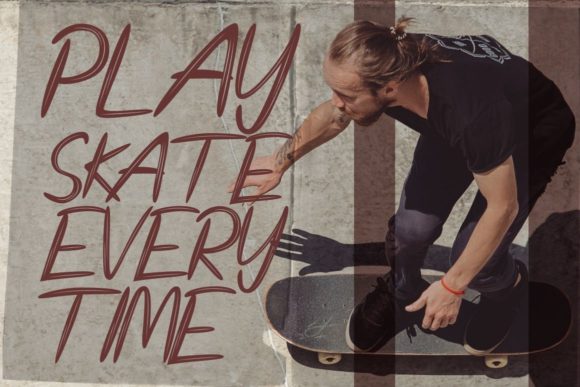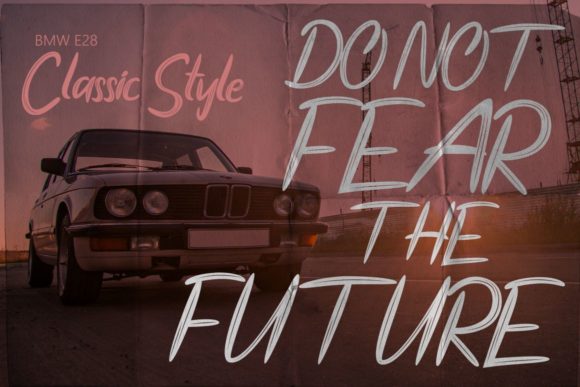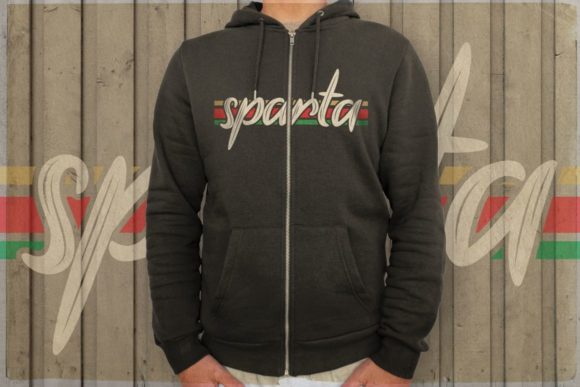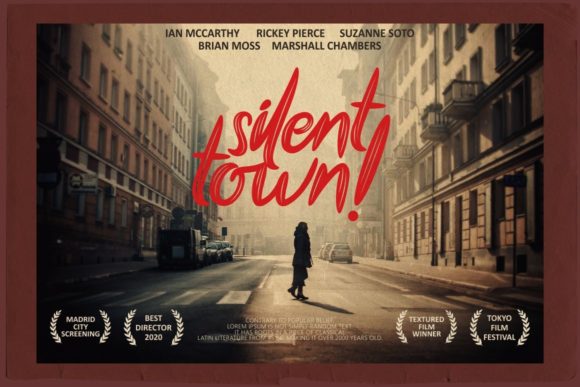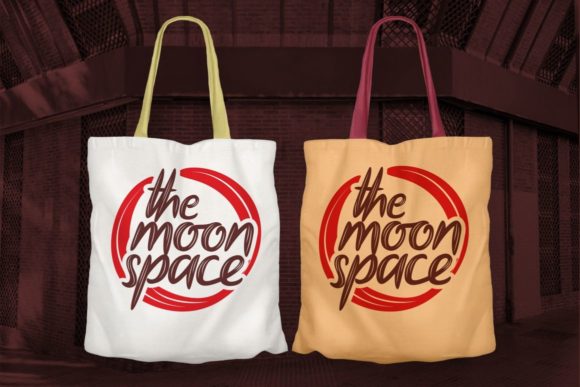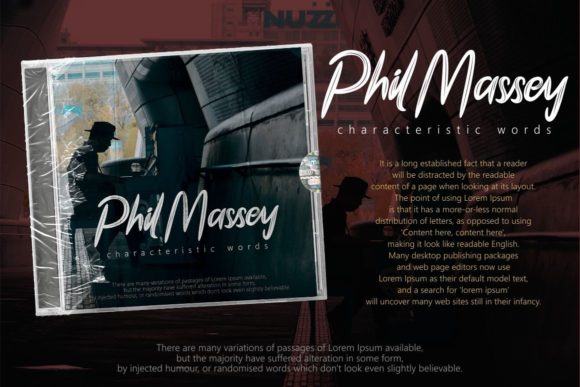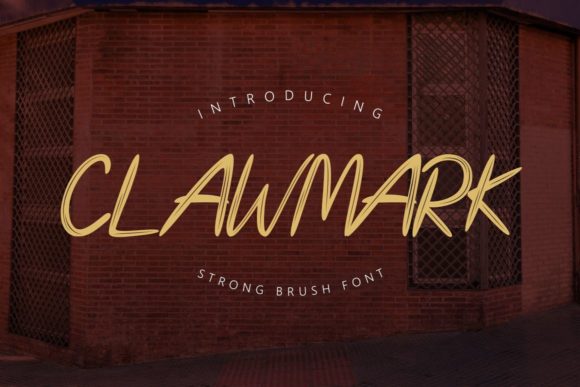
Unleash Your Creativity with Clawmark Font: A Cool Brushed Display Font
Are you a designer or crafter looking for a unique and creative way to bring your ideas to life? Look no further than the Clawmark Font, a cool, brushed display font that’s sure to add a touch of personality to any project. In this article, we’ll take a closer look at the features and benefits of Clawmark Font, and explore how it can help you take your designs to the next level.
What is Clawmark Font?
Clawmark Font is a brushed display font that’s perfect for adding a touch of edginess and creativity to your designs. With its unique, hand-brushed texture, this font is sure to stand out from the crowd and grab attention. Whether you’re working on a logo, poster, or social media graphic, Clawmark Font is a versatile and stylish choice that’s sure to impress.
One of the standout features of Clawmark Font is its PUA (Private Use Area) encoding. This means that you can access all of the glyphs and swashes with ease, giving you maximum flexibility and creative control. With PUA encoding, you can easily insert special characters, ligatures, and other unique elements into your designs, taking them to the next level.
Features and Benefits of Clawmark Font
So what makes Clawmark Font so special? Here are just a few of its key features and benefits:
• Unique, hand-brushed texture: Add a touch of personality and edge to your designs with Clawmark Font’s distinctive, hand-brushed texture.
• PUA encoded: Easily access all glyphs and swashes, giving you maximum creative control.
• Versatile and stylish: Perfect for a wide range of design projects, from logos and posters to social media graphics and more.
How to Use Clawmark Font in Your Designs
So how can you start using Clawmark Font in your designs? Here are a few ideas to get you started:
• Logos and branding: Use Clawmark Font to create a unique and memorable logo that stands out from the crowd.
• Posters and flyers: Add a touch of personality and style to your posters and flyers with Clawmark Font’s bold, brushed texture.
• Social media graphics: Use Clawmark Font to create eye-catching social media graphics that grab attention and drive engagement.
• Crafting and DIY projects: Add a personal touch to your crafting and DIY projects with Clawmark Font’s unique, hand-brushed texture.
Tips and Tricks for Getting the Most Out of Clawmark Font
Here are a few tips and tricks for getting the most out of Clawmark Font:
• Experiment with different colors and textures: Try pairing Clawmark Font with different colors and textures to create unique and eye-catching designs.
• Use it sparingly: Don’t be afraid to use Clawmark Font sparingly to add a touch of personality to your designs – sometimes less is more!
• Combine it with other fonts: Try combining Clawmark Font with other fonts to create interesting and dynamic typography.
In conclusion, Clawmark Font is a cool, brushed display font that’s perfect for designers and crafters looking to add a touch of personality and creativity to their projects. With its unique, hand-brushed texture and PUA encoding, this font is sure to stand out from the crowd and bring your ideas to life. So why wait? Download Clawmark Font today and start unleashing your creativity!